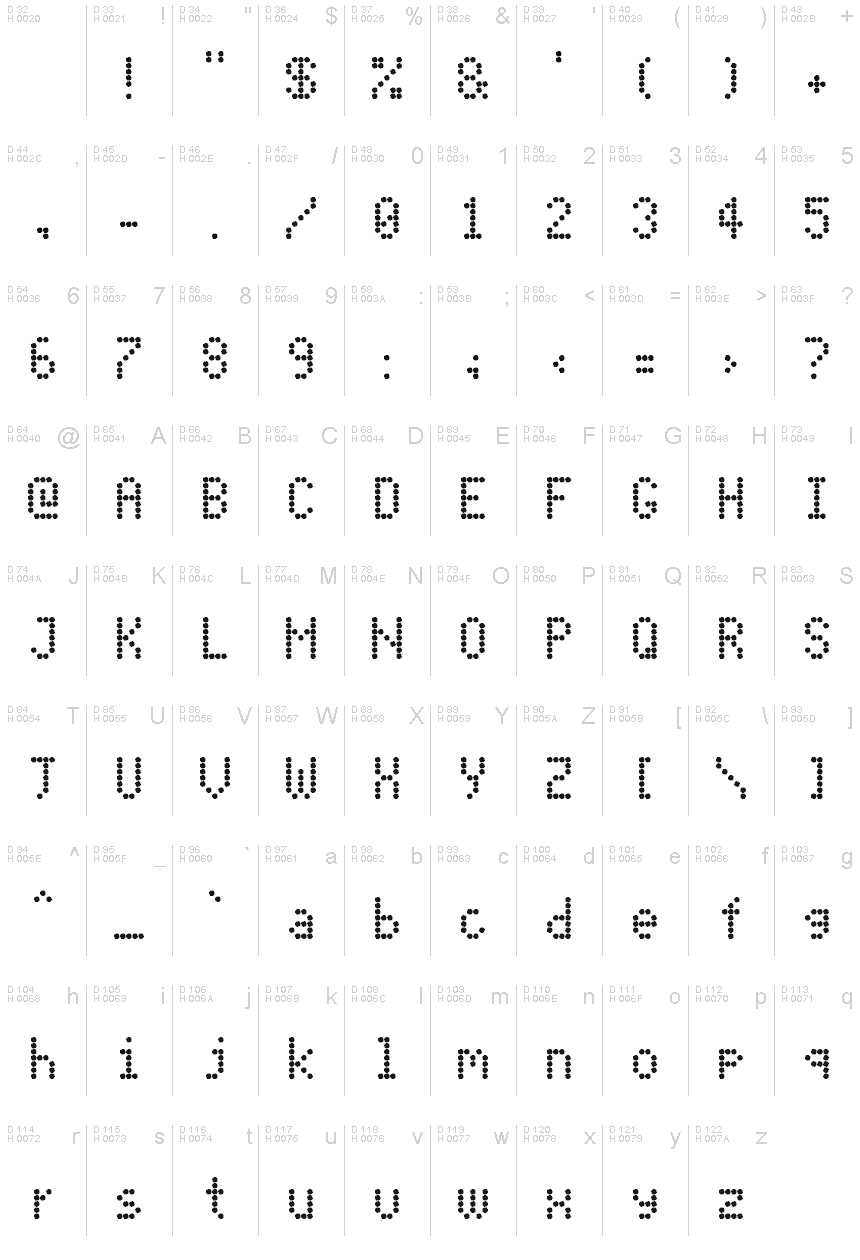
PIDvl cond
PIDvl cond emerges as a distinctive display font that captures attention with its digital style and condensed form. Crafted by Miloš Kunst, this typeface boasts a unique aesthetic that merges a semi-light weight with an economy of space, making it an excellent choice for projects where space is at a premium but impact is desired.
The digital nature of PIDvl cond lends it an edgy, contemporary feel ideal for tech-related designs, electronic media branding, and creative visuals aiming for a futuristic vibe. Its condensed width allows for efficient use of space without sacrificing readability, which is particularly useful in UI design, poster creation, and anywhere bold statements need to be made in limited areas.
With its chic appearance and smart design choices by Kunst, PIDvl cond stands out as a versatile font capable of adding character to various creative endeavors while maintaining clarity and modern elegance.